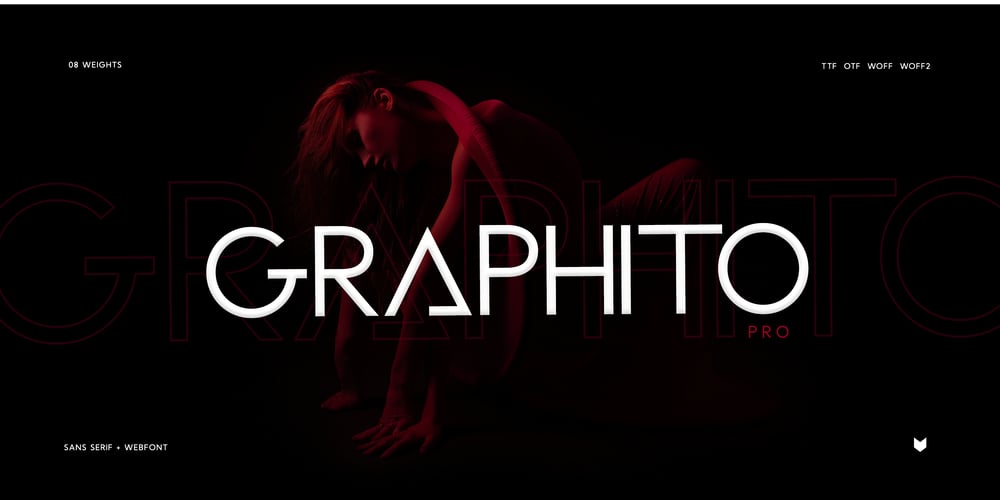
Graphito Pro Font Family was designed by Evin Tony and published by FoxType. Graphito Pro contains 8 styles and family package options. Graphito is a Minimalist Modern Elegant Typeface with Web-fonts. It’s a very versatile font that works great in large and small sizes. Graphito would perfect for branding, logos, headlines, Captions. or simply as a stylish text overlay to any background image.8 Weights Included.